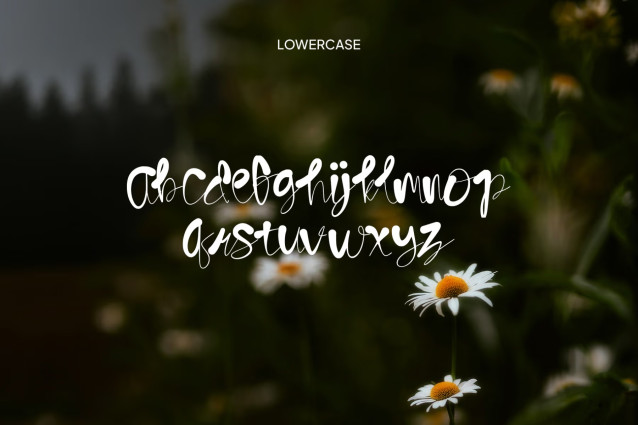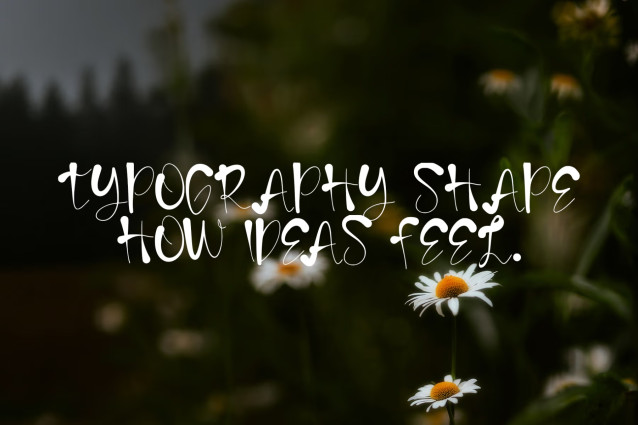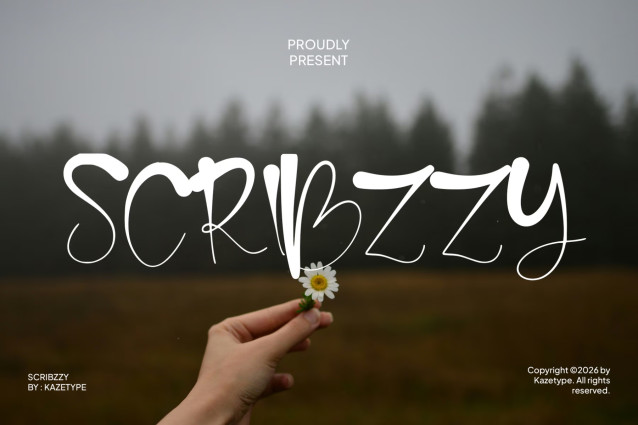
Scribzzy Font
Scribzzy is a fun, quirky handwriting font with a playful scribble vibe. Perfect for posters, social media graphics, kids’ designs, casual branding, stickers, and anything that needs a wobbly, handwritten personality.